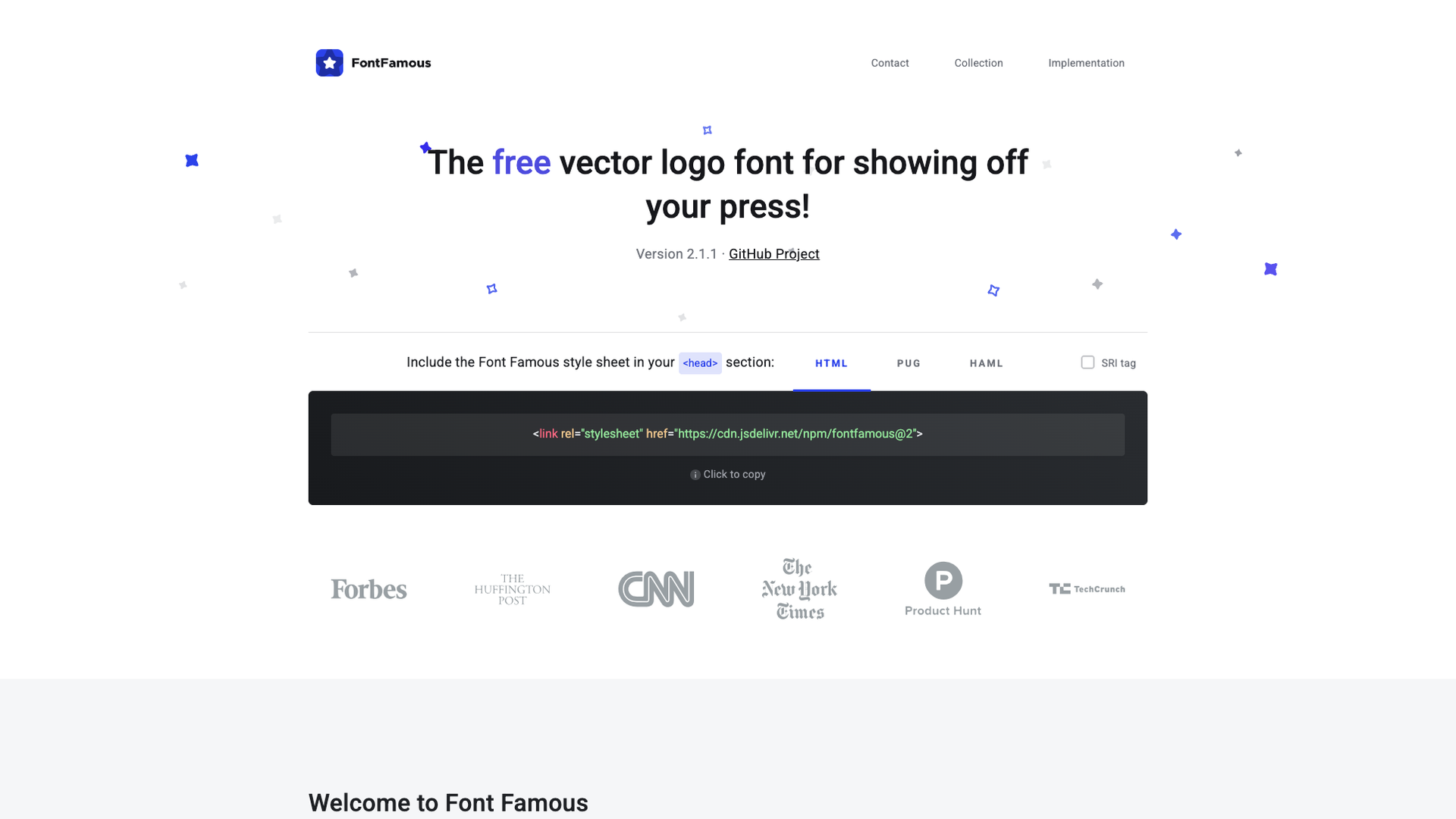
Free vector logo font for instantly displaying press and media logos via CSS
Font Famous is a free, open‑source vector logo font that provides ready‑to‑use icons for hundreds of well‑known media and news brands. By adding a single stylesheet to your site, you can style any element with simple CSS classes to display crisp, scalable logo icons without searching for images or editing them in Photoshop. Ideal for press pages, portfolios, and any project that needs to highlight coverage or affiliations quickly and consistently.